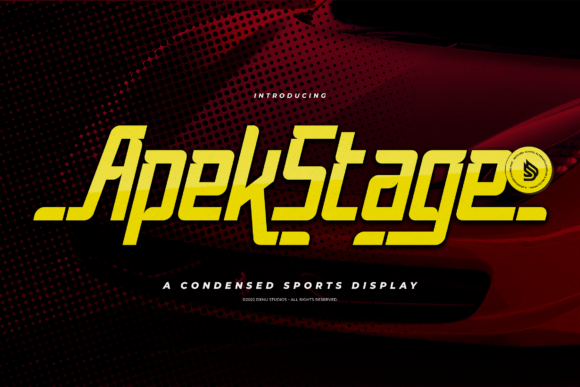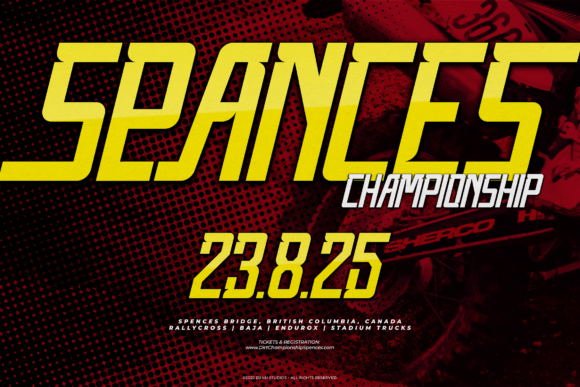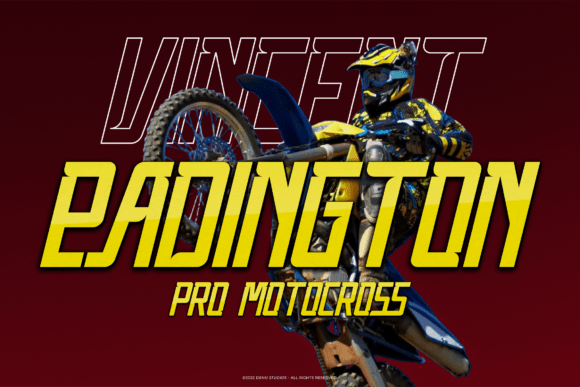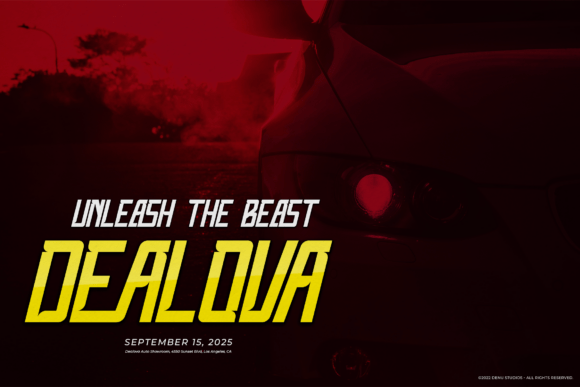
Apek Stage Font: Bold Display Font for Sporty Logo Design
About the Apek Stage Font
Make a bold statement with Apek Stage Font, a powerful and memorable font. ApekStage is a dynamic and futuristic condensed display font built for speed and impact. With sleek lines and sporty curves, this typeface is perfect for racing themes, athletic branding, energy drink packaging, esports logos, and bold headlines. Its modern aesthetic and unique style elements make it a standout choice for adrenaline-fueled designs.
Apek Stage excels in large-scale applications such as headlines, posters, and logos where its bold, condensed forms command attention. It’s ideal for brands projecting speed, power, and a modern aesthetic—think sports apparel, technology companies, or energy drinks. Avoid using Apek Stage for body text or UI elements; its condensed nature and strong visual impact hinder readability in smaller sizes or extended text.
Pairing Apek Stage with a clean sans-serif like Open Sans for body copy creates a strong visual hierarchy. For a more playful feel, consider a rounded geometric sans-serif such as Futura Rounded. A contrasting serif like Garamond would add sophistication, best used for supporting text or brand details.
Apek Stage’s core personality is energetic and futuristic, conveying a sense of dynamism and cutting-edge innovation. Its bold forms and condensed structure make it particularly suitable for projects demanding immediate impact and a strong visual presence.
Apek Stage Font Usage Examples
Apek Stage Font Example